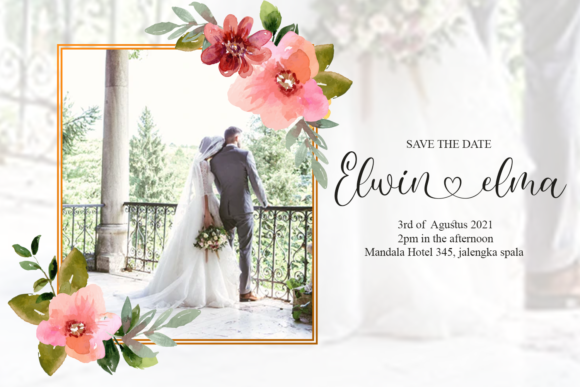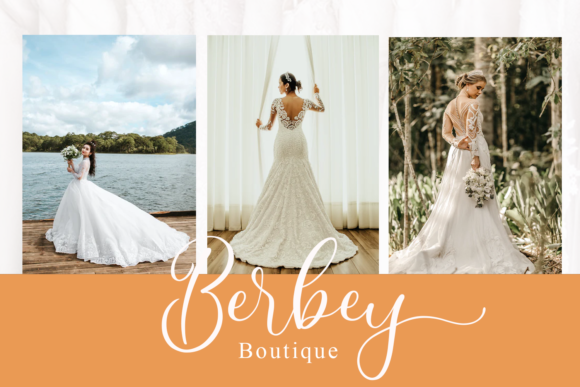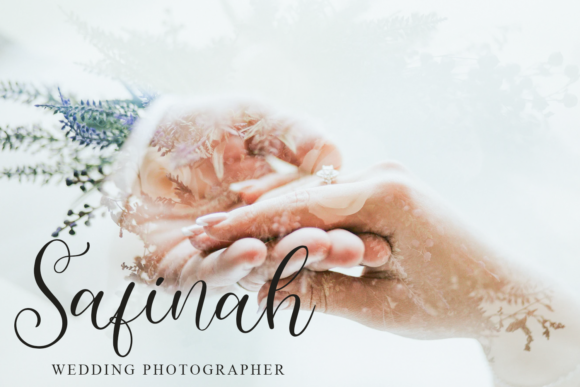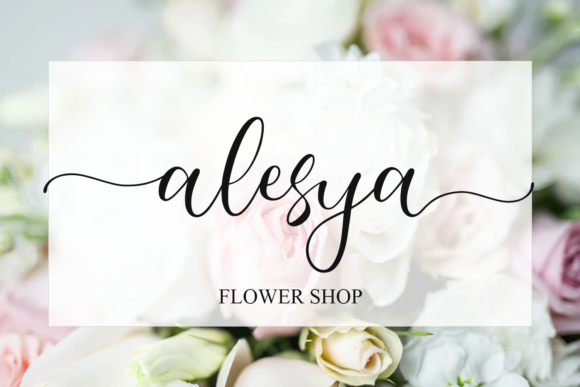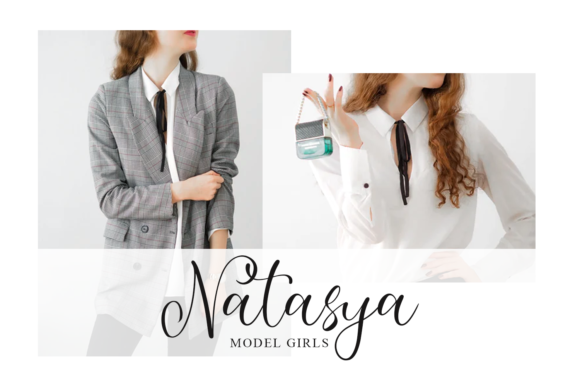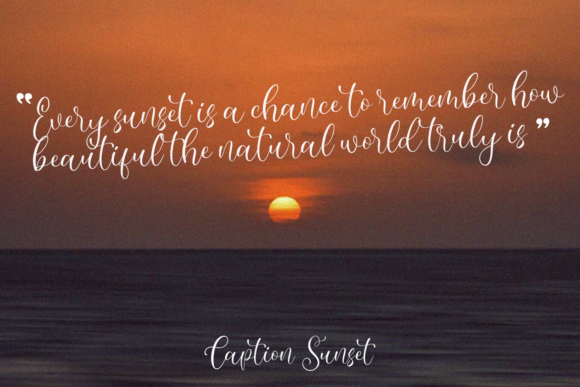
Introduction to Della Mella Font
Have you ever been working on a design project, pouring your heart and soul into it, and suddenly, you stumble upon the perfect font to bring it all together? That’s exactly what happened to many designers who discovered the enchanting Della Mella Font. This romantic and sweet calligraphy typeface has been the game-changer for numerous creative projects, adding a touch of luxury and sophistication to any design.
With its charming characters that dance along the baseline, Della Mella Font is a valuable resource for designers who crave high-quality typography. The fact that it’s PUA encoded makes it even more accessible, allowing designers to unlock all the amazing glyphs and ligatures with ease. Whether you’re working on a logo, brochure, or wedding invitation, this font is sure to elevate your design to the next level.
Key Features of Della Mella Font
- High-quality design resource ideal for creative projects, offering a unique and elegant aesthetic.
- Comes in a transparent background, allowing for seamless integration into different design environments.
- Features a clean and sophisticated design, suitable for use in corporate branding, editorial content, and advertising materials.
- Designed with a high-resolution (300 DPI) to ensure crisp and clear rendering, even in large-scale applications.
- Part of a larger font family, offering a range of weights and styles to suit various design needs and preferences.
Honest Review: Della Mella Font
I recently stumbled upon the Della Mella Font, and I’m excited to share my thoughts on this design resource. As a designer, I’m always on the lookout for high-quality fonts that can elevate my creative projects.
What works well: ✨ The Della Mella Font is a beautiful, elegant script font that’s perfect for invitations, wedding stationery, and other special occasion designs. The font is available for free download, which is a huge plus for designers on a budget. The transparent background makes it easy to use in various design contexts.
What doesn’t: ⚠️ While the font is stunning, I did notice that it’s not as versatile as some other fonts on the market. It’s mainly suited for formal, elegant designs, and may not be the best choice for more casual or playful projects.
Overall impression: I’m really impressed with the Della Mella Font. It’s a great addition to any designer’s collection, and I’ve already used it in a few projects. If you’re looking for a high-quality, elegant font for your next creative project, I’d definitely recommend checking it out.
- Elegant, formal design
For the best results, use the Della Mella Font in combination with other high-quality design resources. Experiment with different font sizes, colors, and styles to create a unique look. You can also use the font for headings, titles, and body text.
The Della Mella Font is perfect for a variety of creative projects, including business cards, brochures, and websites. You can also use it for social media graphics, posters, and flyers. With its high-quality design and transparent background, the Della Mella Font is a versatile resource for any design project.